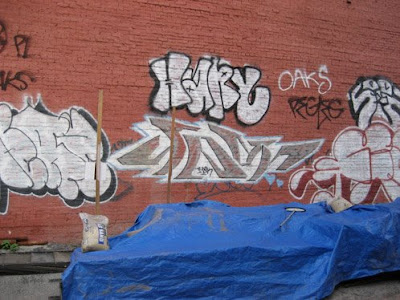
ORANGE for causing the eye follows. What lack of that graffiti alphabets by the picture are more attractive colors, coz the bright orange background theme is very much drawn. That’s why we need to get more impact by adding more happy color then the background so the graffiti alphabets that we draw not losing its charms.
Mostly white graffiti alphabets in that orange wall, that not bad, but it gonna be a good combination if we pick another colors to accompanied the white. With the right mixture you gonna get a better impact to your graffiti alphabets